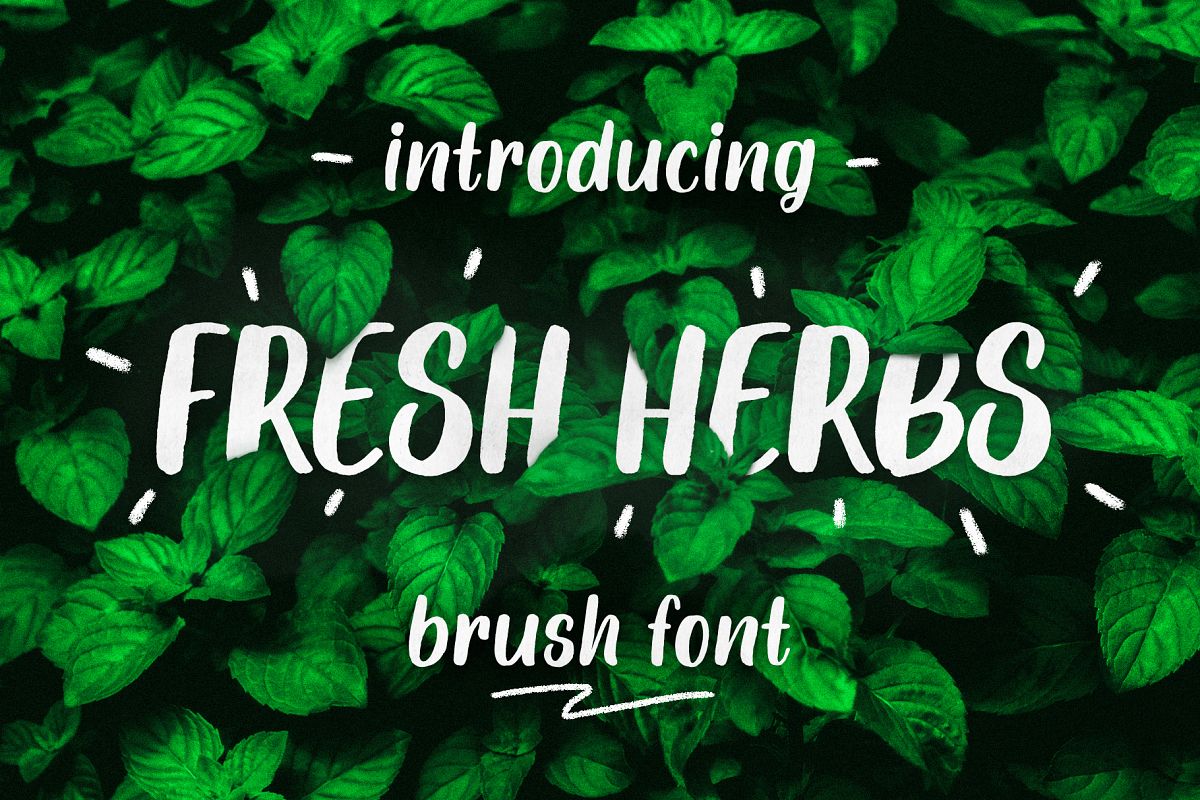
Fresh Herbs font
YTFreshHerbs-Regular
FRESH HERBS is a hand drawn brush font with rough edges (visible in the big size) and more 300 characters and extensive Latin-based languages support. This font looks good when typing small inscriptions, and long texts too. You can type the title in only uppercase letters and it will also look tasty. Use Fresh Herbs font for text on photo, cards design, product packaging, apparel and any any more purposes which needs typography.